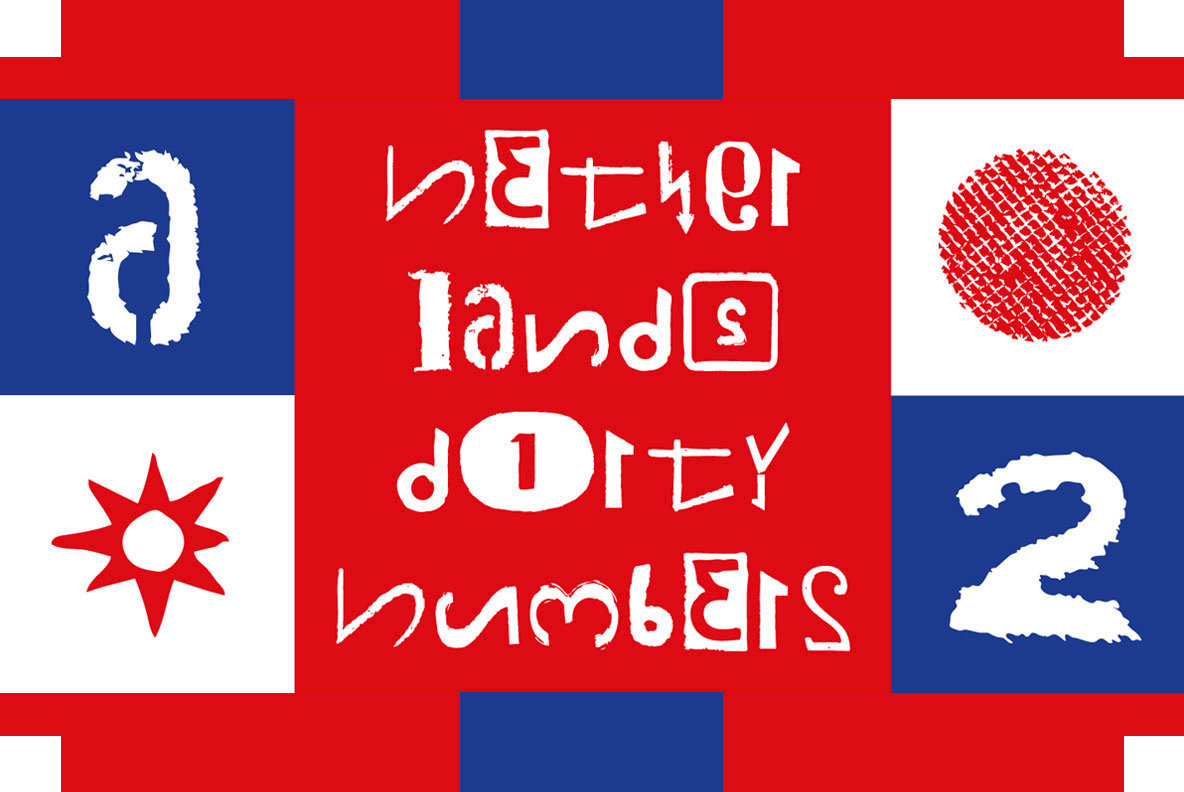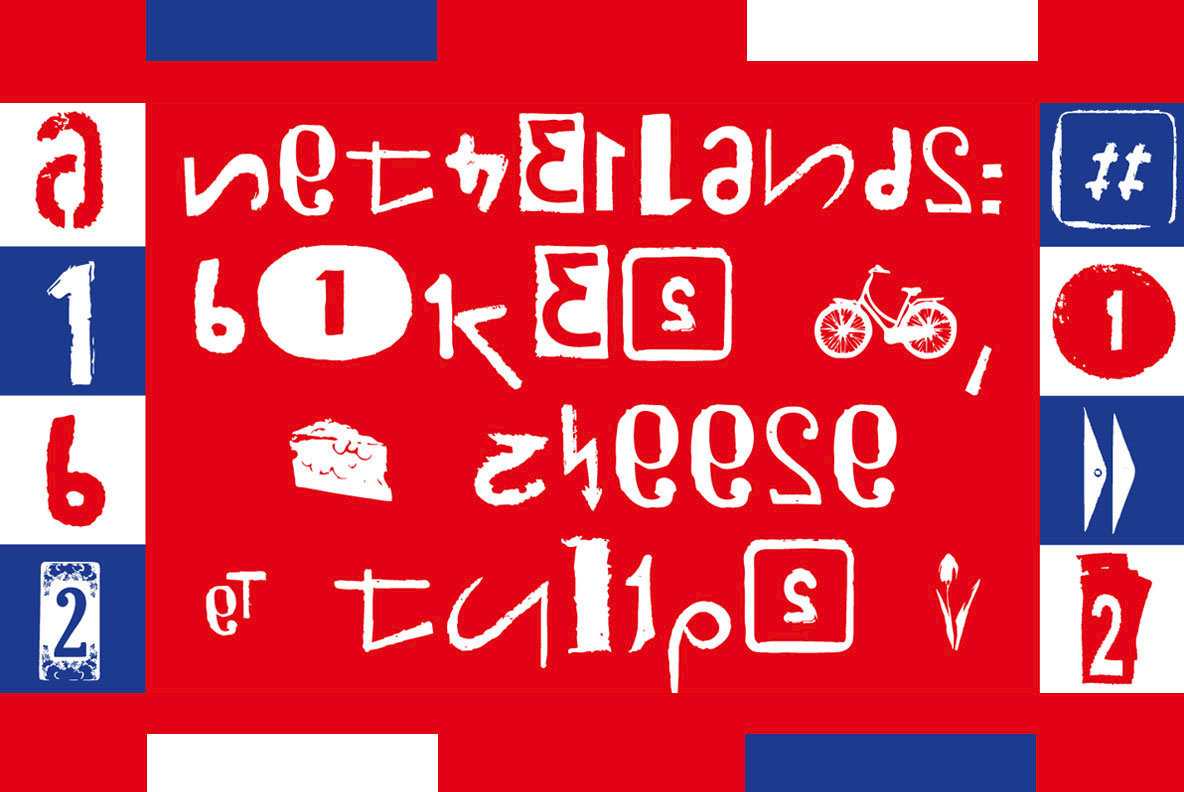
Netherlands Dirty Numbers Font
The typeface “Netherlands Dirty Numbers Vol 1” is designed for the Typo Graphic Design font foundry in 2017 by Manuel Viergutz. The playful display font is designed on holiday photos of different numbers (house numbers, graffitis, handwritten menu cards …) from the Netherlands. An alphabet built with numbers.
342 glyphs with A–Z, a–z, 0–9 and 40+ decorative extras like arrows, dingbats, emojis, symbols, geomatric shapes, catchwords, decorative ligatures (type the word “LOVE” for ❤ or “SMILE” for ☺as OpenType-Feature dlig ) and of course many many numbers (20+ stylistic sets). For use in logos, magazines, posters, advertisement plus as webfont for decorative headlines. The font works best for display size.
- Font Name: Netherlands Dirty Numbers
- Font Category: Display for headline size
- Glyph Set: 342 glyphs
- Specials: 40+ decorative extras like arrows, dingbats, emojis, symbols, geomatric shapes, catchwords, decorative ligatures (type the word “LOVE” for ❤ or “SMILE” for ☺as OpenType-Feature dlig ) and of course many many numbers (20+ stylistic sets).
- Design Date: 2017
- Type Designer: Manuel Viergutz